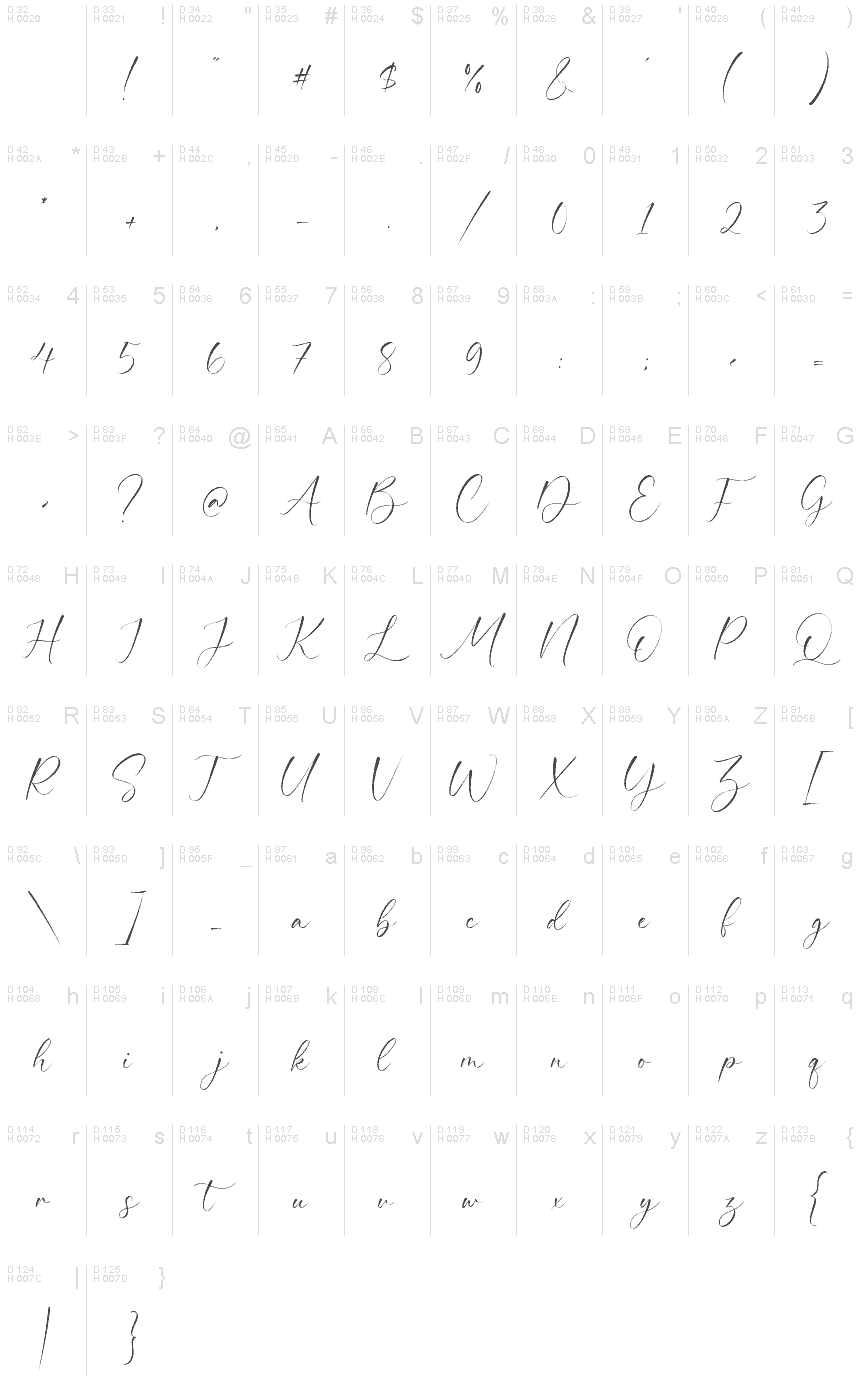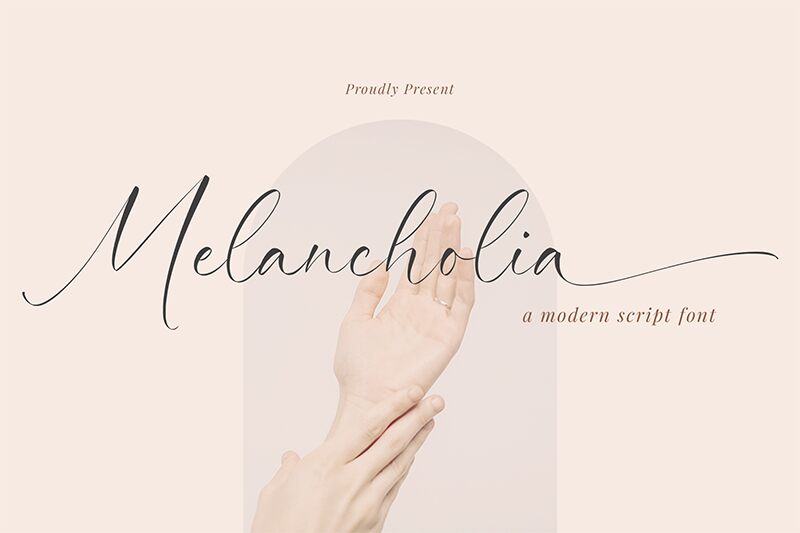
Melancholia
Melancholia font is a free calligraphy font by Timur Type. The light and flowing curves tune this elegant typeface into an impressive tool for designing impactful projects. Using the right thickness, the letters appear delicate but manage to convey a unique modern touch.
Projects that would benefit from Melancholia include branding, invitations, stationery design, quotes, social media posts, stories, greeting cards, packaging design, advertising campaigns, business cards & logos.